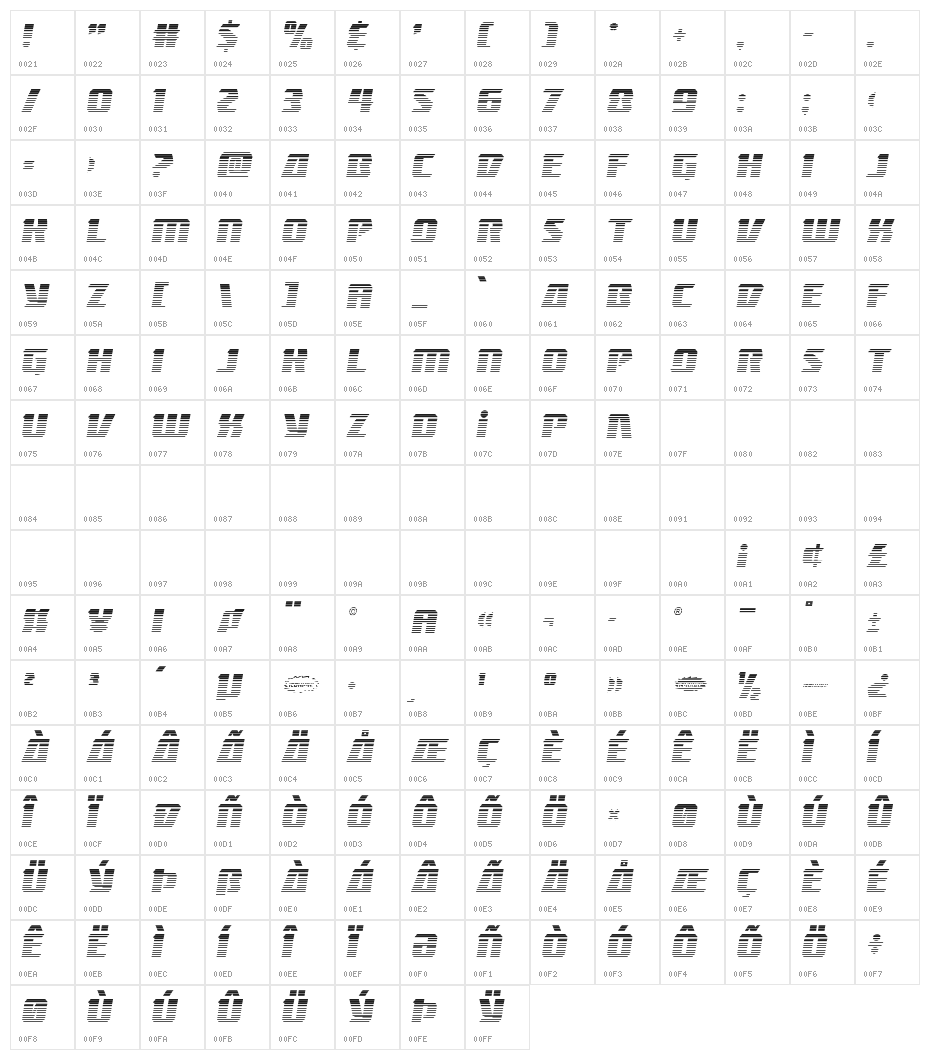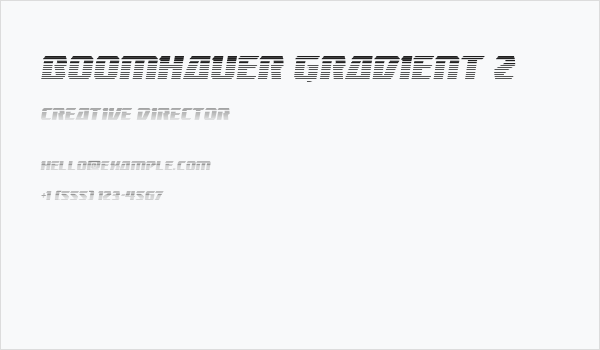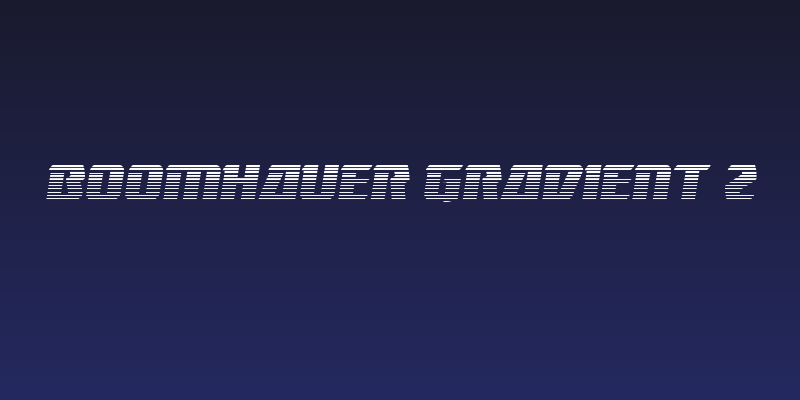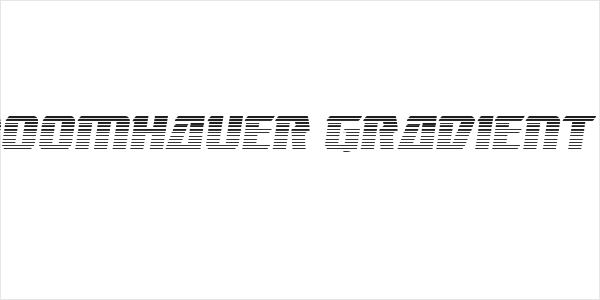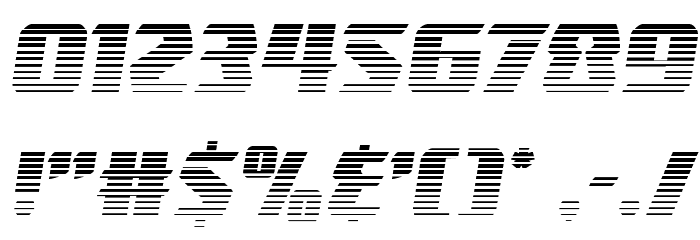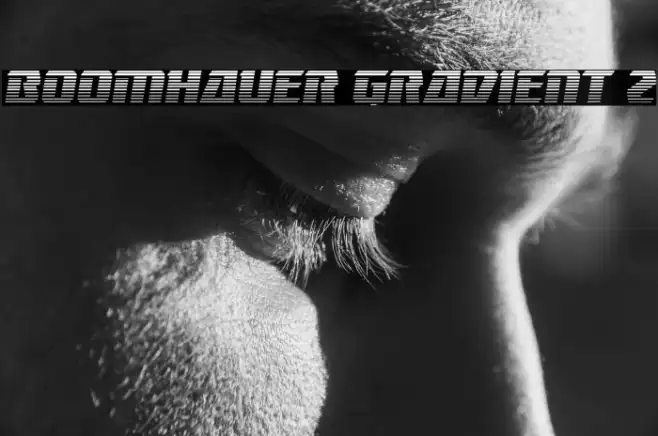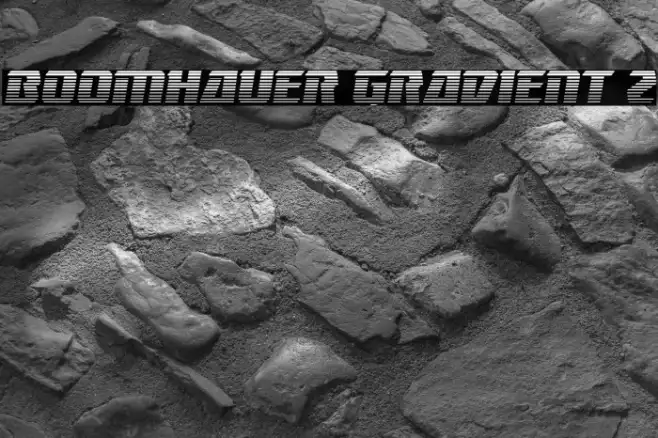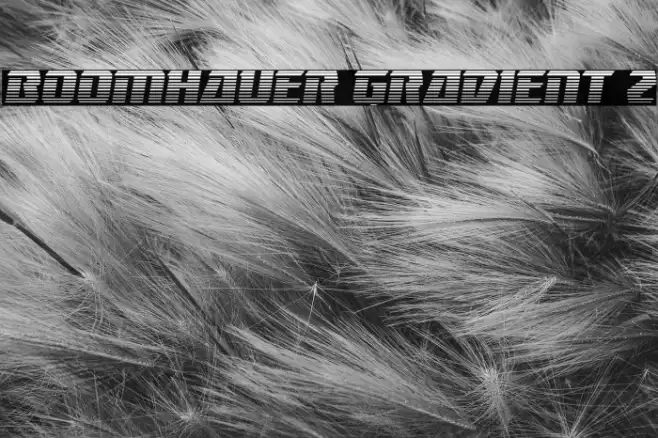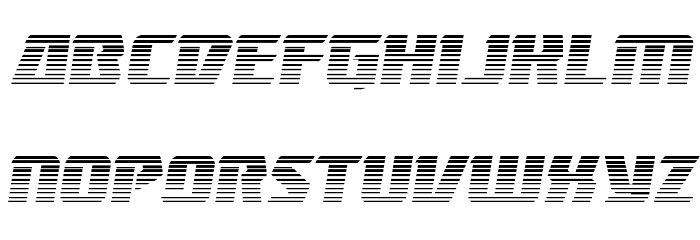
Boomhauer Gradient 2 Font
Boomhauer Gradient 2 Description
This font features a unique gradient effect created by horizontal lines that form each character, giving it a dynamic and modern appearance. The uppercase and lowercase letters maintain a consistent style, with sharp angles and a slightly condensed form. The numbers and special characters follow the same design, ensuring uniformity across all elements. This font's distinct line pattern adds a sense of movement and energy, making it ideal for eye-catching designs.
| Proposed Projects | Ideal for futuristic designs, tech branding, sports team logos, and dynamic posters. |